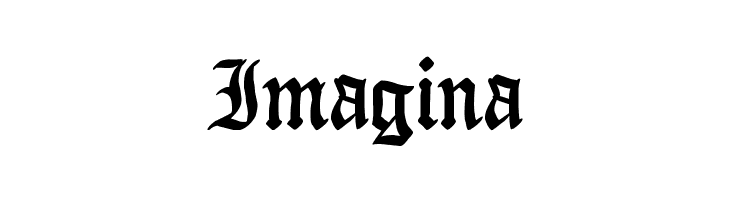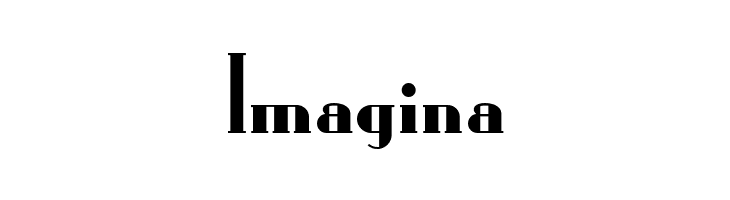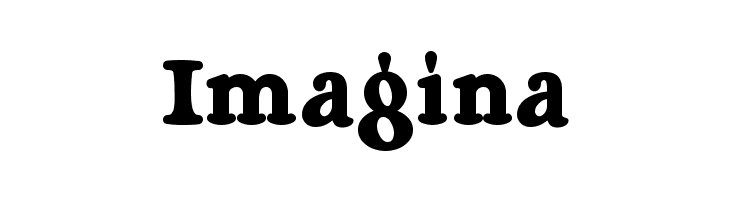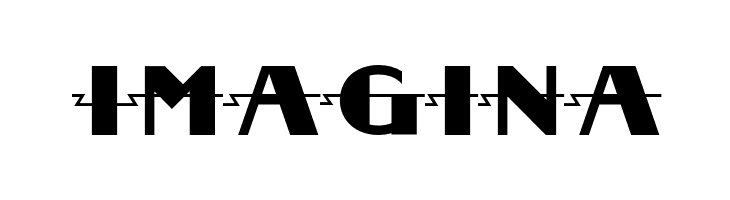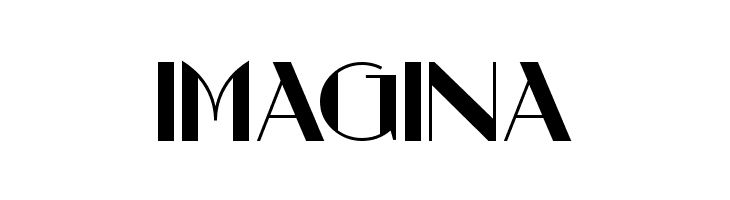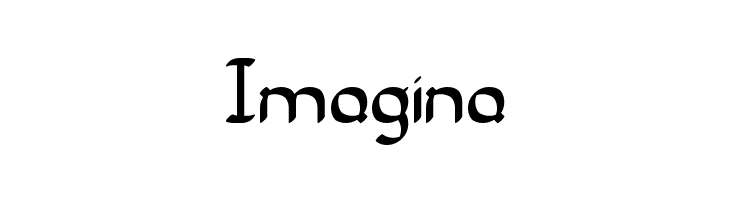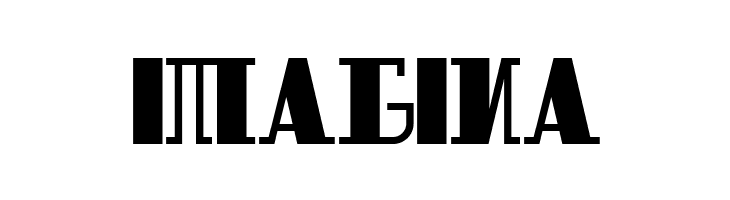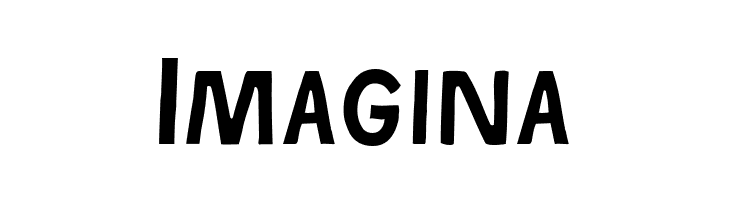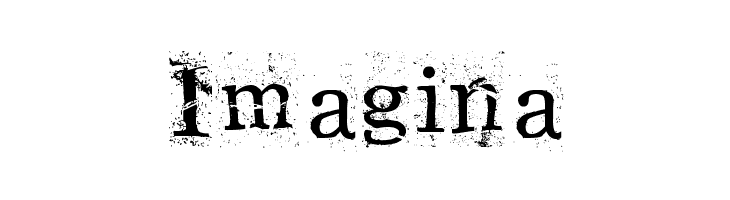
A rounded, modern font with consistent stroke thickness and smooth curves.
A bold, narrow font with high contrast and tight spacing, perfect for impactful headlines.
A sophisticated Art Deco-inspired font with geometric shapes and elegant curves.
A bold, geometric font with high contrast and artistic flair.
A bold, geometric font with Art Deco influences, perfect for stylish and modern designs.
A bold, vintage-inspired serif font with sharp serifs and a commanding presence.
A bold, geometric font with uniform strokes and strong visual impact.
A futuristic, geometric font with circular and semi-circular shapes.
A bold, vintage-style font with high contrast and sharp serifs.
An ornate, decorative font with intricate detailing and a vintage aesthetic.
A bold, retro-inspired serif font with rounded characters and a playful vibe.
A bold, playful serif font with rounded serifs and a whimsical style.
A bold slab serif font with strong vertical emphasis and geometric elements.
A sleek, modern font with a slight italic slant and consistent stroke width.
A dynamic, bold font with a slight slant and rounded characters.
A modern, slightly slanted font with rounded edges and a friendly appearance.
A playful, futuristic font with bold, rounded shapes and whimsical accents.
A bold and intricate Blackletter font with dramatic serifs and ornate details.
A bold, handcrafted font with artistic and dynamic characteristics.
A bold, modern font with a vintage touch, featuring slightly condensed uppercase letters.
A bold, dramatic font with sharp angles and a strong presence.
A pictogram dingbat font with eclectic, illustrated symbols.